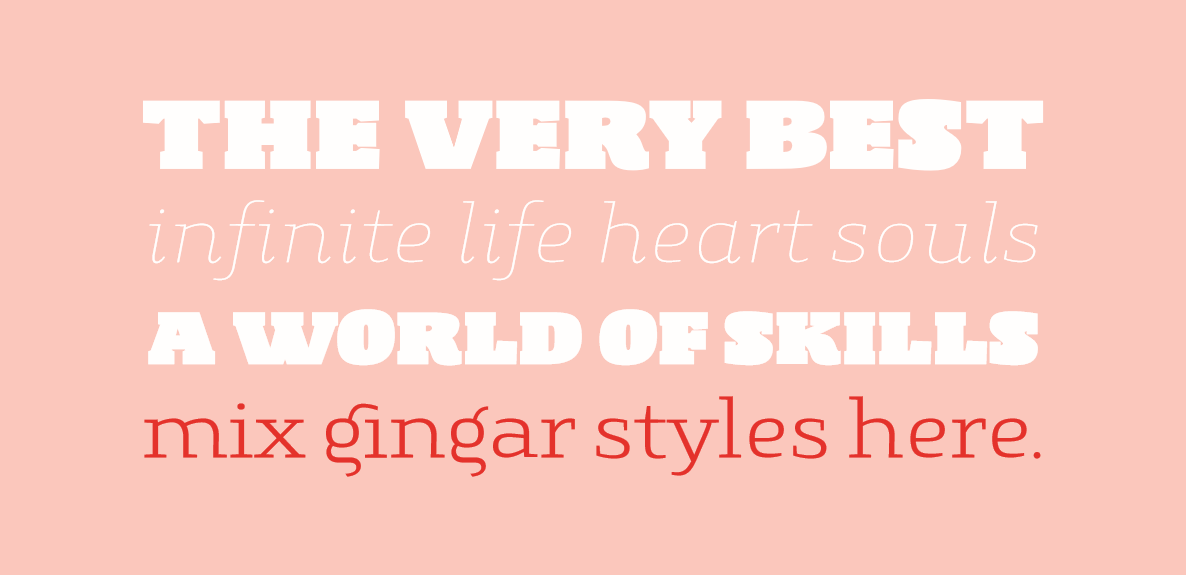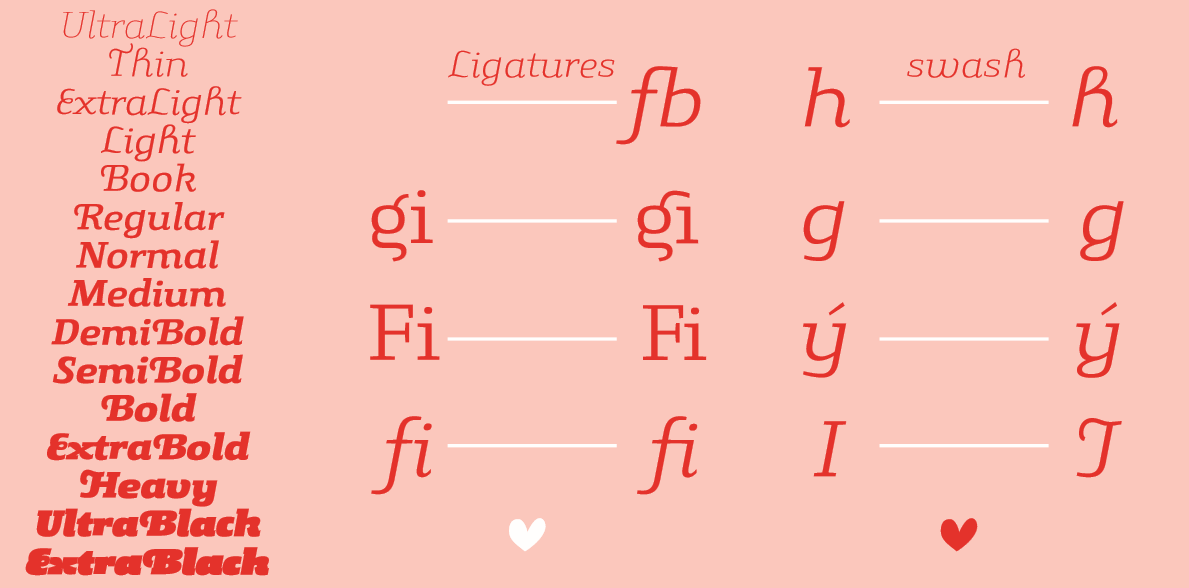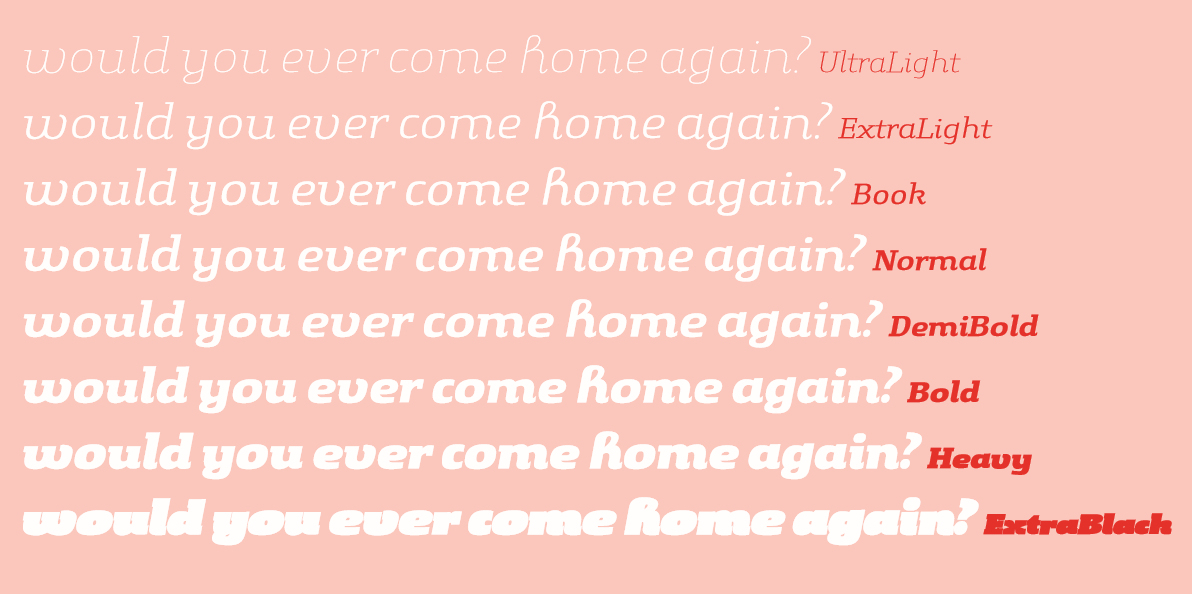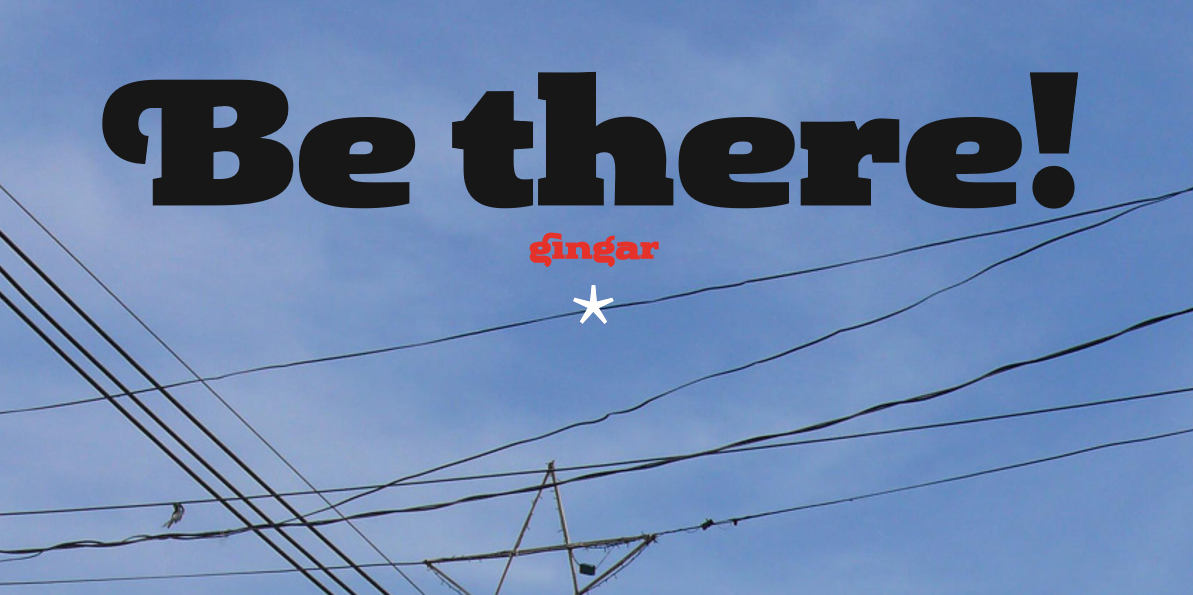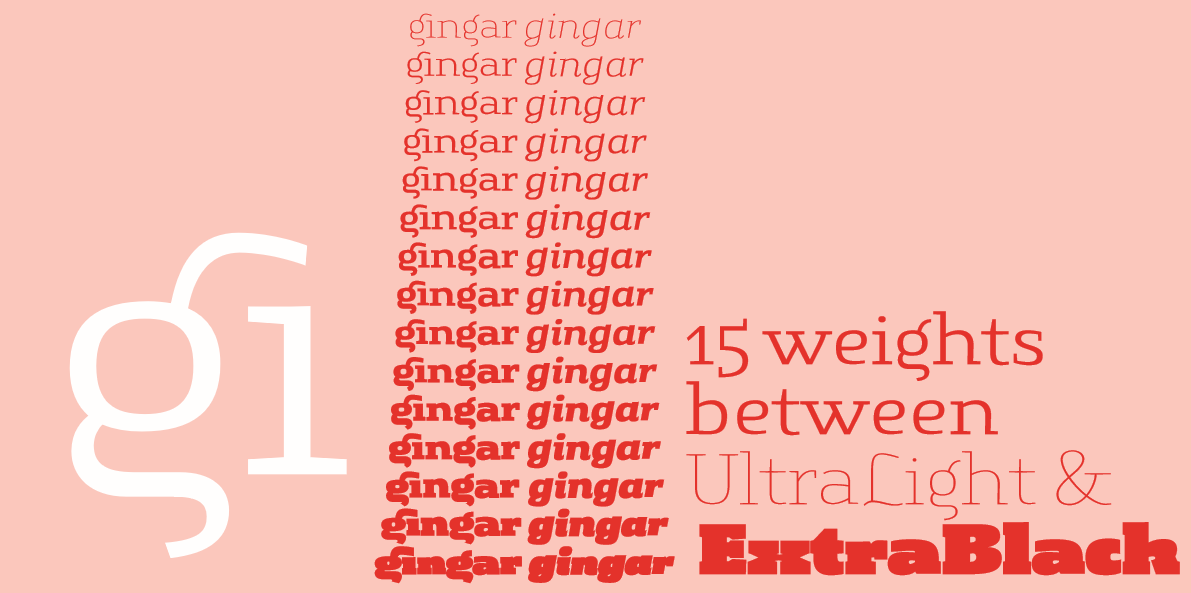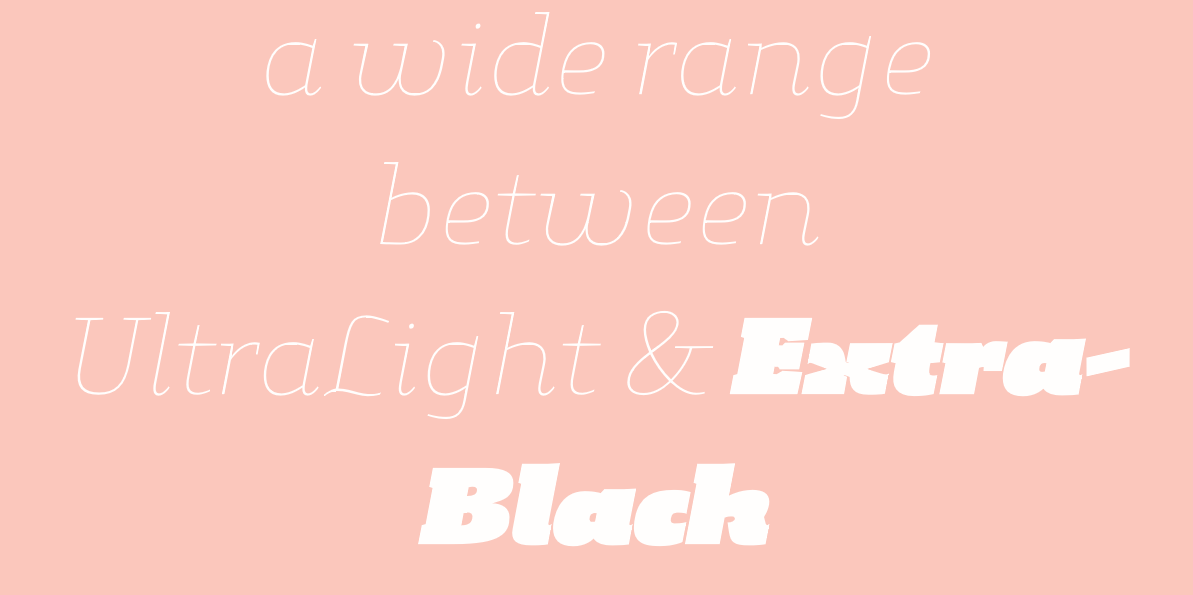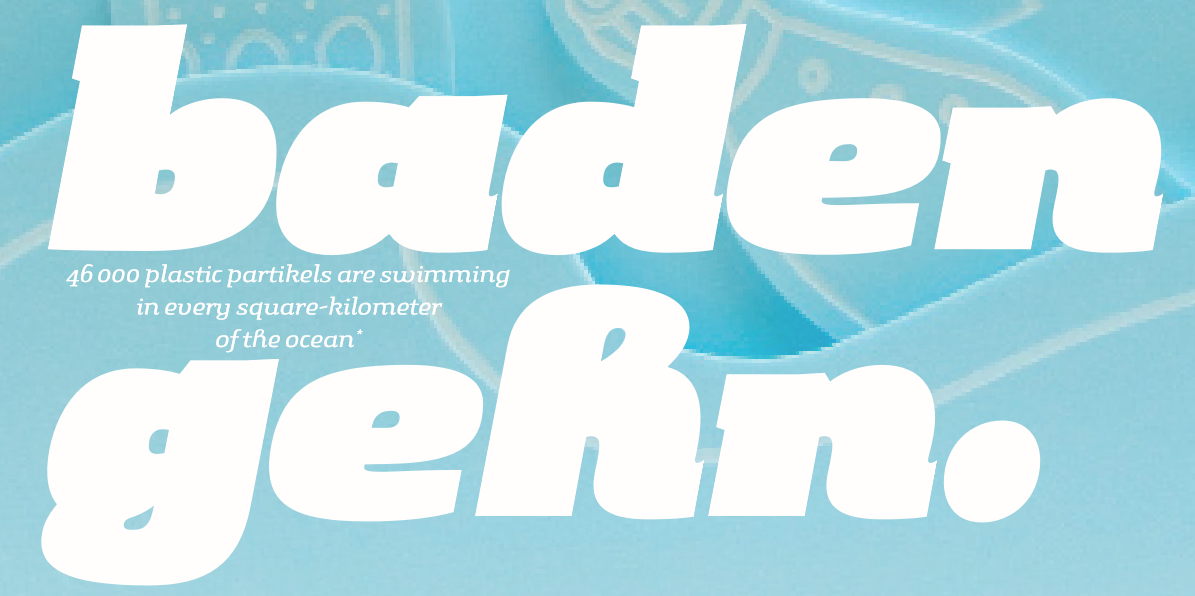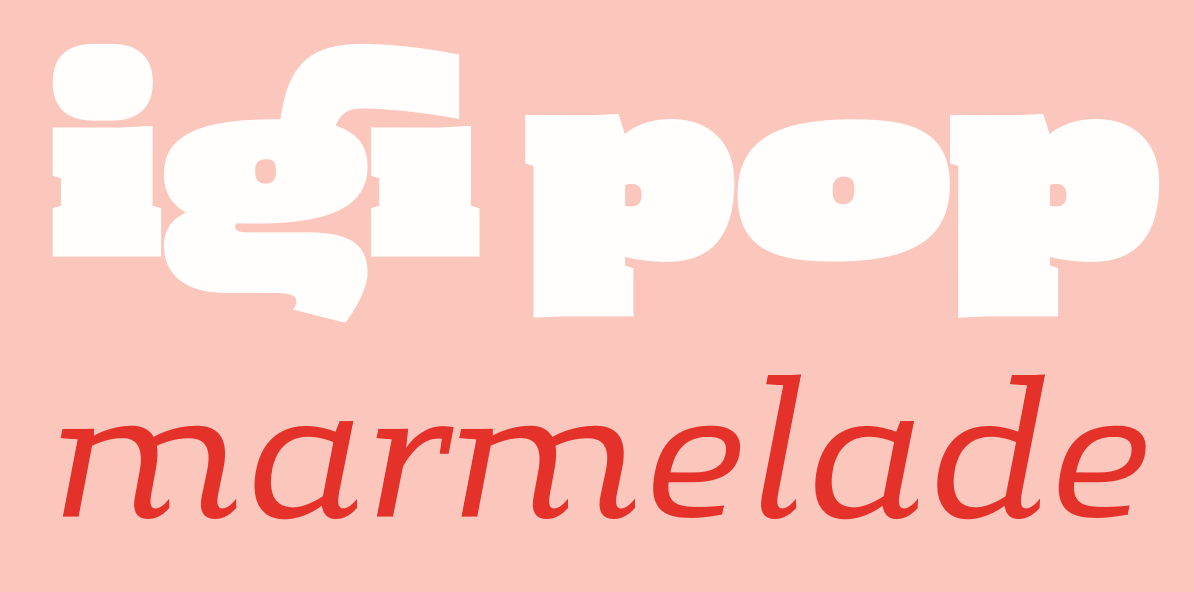
Gingar Font Family
I proudly present Gingar, a warm and friendly headline face with a Slab Serif touch. A good mixture of the playful and the classic. A proper font. Gingar includes swash-characters and ligatures and consists of 30 styles in a wide range of weights from ultra light to extra black plus italics. Use the typeface for fashion, food, wellness, magazines, corporate design projects and many more. You will rock it!